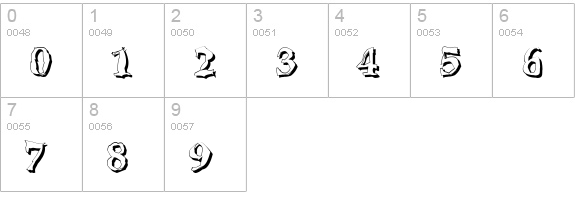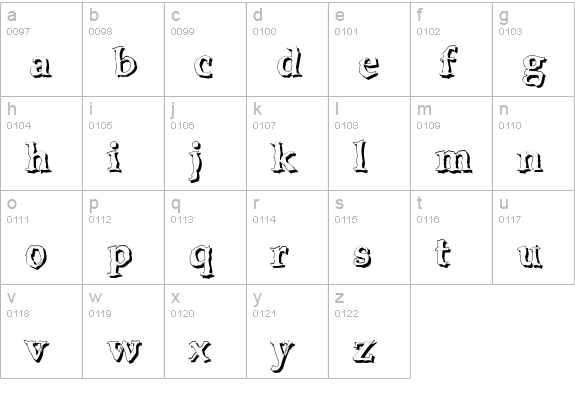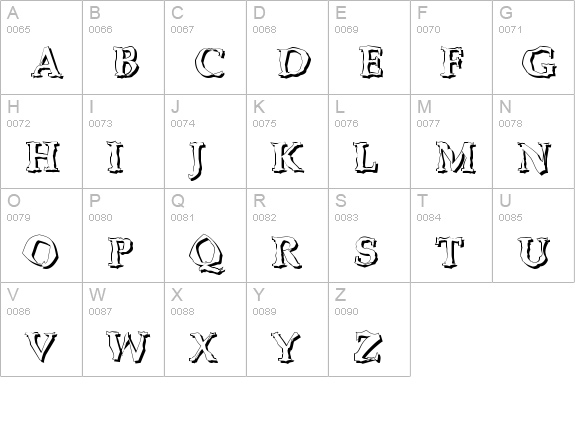
BONKERS - shadow Font Details
BONKERS - shadow font is a captivating and unique typeface that adds a touch of mystery and intrigue to any design project. With its bold, shadowed letters and edgy style, this font is perfect for making a statement and standing out from the crowd. Whether you're working on a poster, logo, or social media graphic, BONKERS is sure to grab attention and leave a lasting impression. And the best part? This stunning font is completely free to download at FontsMarket.com! Don't miss out on the opportunity to add BONKERS - shadow font to your collection and take your designs to the next level. Download it today and let your creativity run wild with this striking and eye-catching typeface.